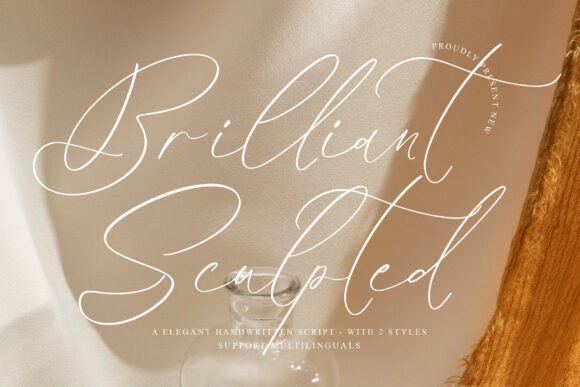
The Elusive Perfect Font: My Journey with Brilliant Sculpted
I still remember the design project that led me to Brilliant Sculpted. I was working on a luxury branding campaign, and my client requested a font that exuded elegance and sophistication. As I scoured the internet for the perfect match, I stumbled upon Brilliant Sculpted – a refined handwritten script that stole my heart. In this article, I’ll share my experience with this beautiful font, its features, and how to make the most of it in your designs.
An Honest Review of Brilliant Sculpted
- ✨ Elegant ligatures and flowing strokes that give it a luxurious feel
- ✅ Two style variations to suit different design needs
- 🌎 Full multilingual support for global projects
- 🔍 OpenType features that allow for creative experimentation
While Brilliant Sculpted is an excellent font, there are a few things to keep in mind:
- 🤔 Limited suitability for body text due to its elegant, cursive nature
The Story Behind Brilliant Sculpted
Brilliant Sculpted was designed with the intention of creating a font that embodies luxury and sophistication. Its creator aimed to craft a script that would evoke the elegance of fine art and high-end design. With its flowing strokes and beautiful ligatures, Brilliant Sculpted is perfect for designers seeking to add a touch of refinement to their work.
| Font Name | Brilliant Sculpted Font |
| Author | Operatype.Co |
| What type of projects is Brilliant Sculpted best suited for? | Luxury branding, wedding invitations, and lifestyle content. |
| Does Brilliant Sculpted support non-English languages? | Yes, it offers full multilingual support. |
| Can I use Brilliant Sculpted for body text? | While possible, it’s recommended for headlines and short text passages due to its elegant, cursive nature. |